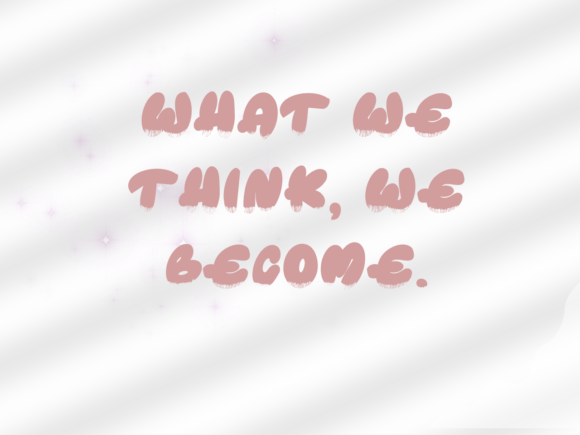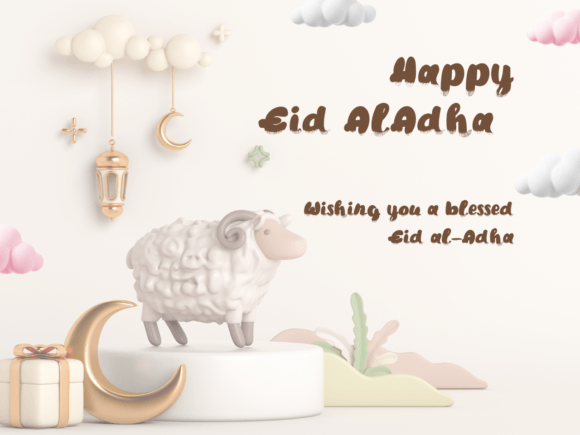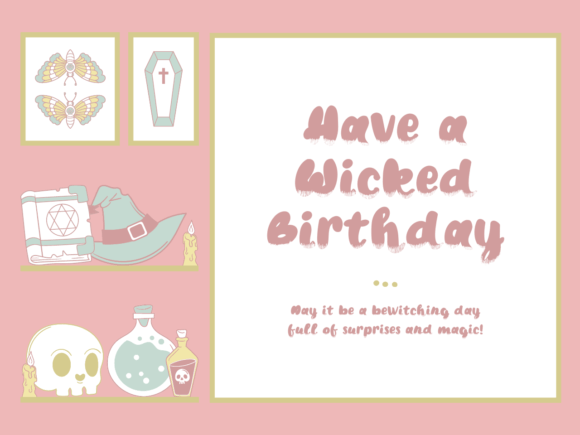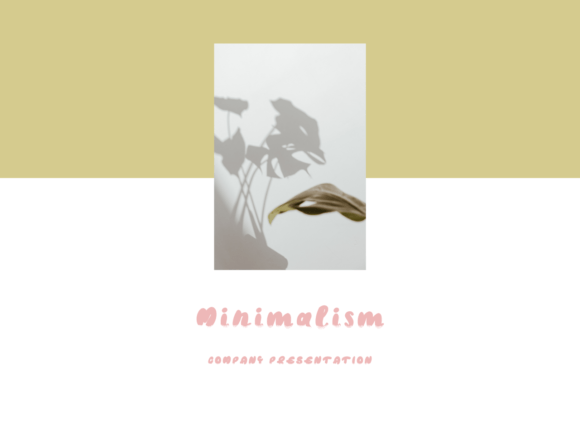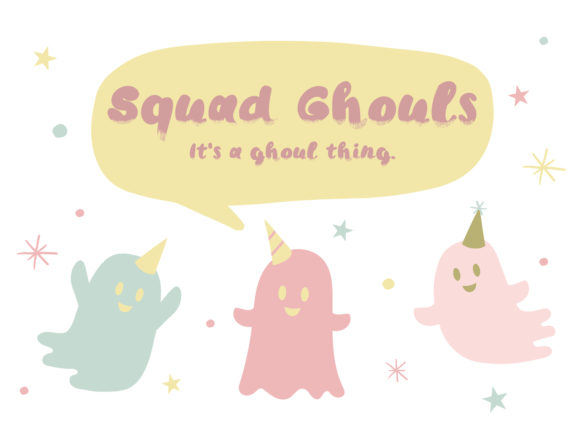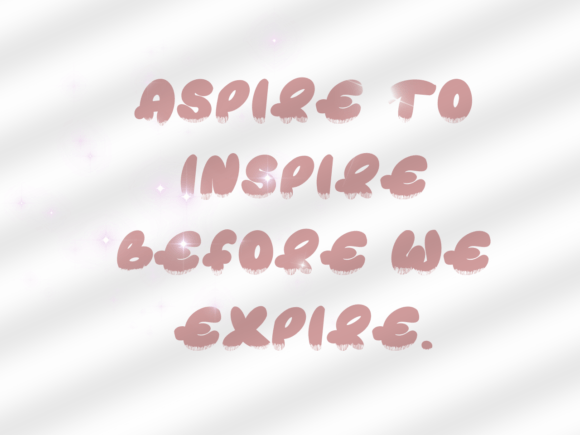
Introducing Beading Font: The Sweet and Friendly Handwritten Font for Creative Projects
Are you a designer, crafter, or DIY enthusiast looking for a font that can add a touch of warmth and personality to your projects? Look no further than Beading Font, a sweet and friendly handwritten font that’s perfect for a wide range of creative applications. In this article, we’ll take a closer look at Beading Font, its features, and how you can use it to elevate your designs.
What is Beading Font?
Beading Font is a beautiful, handwritten font that’s designed to bring a sense of joy and playfulness to your projects. With its rounded letters and gentle curves, this font is perfect for creating invitations, cards, posters, social media graphics, and other materials that require a personal touch. Whether you’re working on a kid-related project or simply want to add some whimsy to your design, Beading Font is an excellent choice.
Key Features of Beading Font
So, what makes Beading Font so special? Here are some of its key features:
- Sweet and friendly design: Beading Font has a warm and approachable design that’s perfect for creating materials that require a personal touch.
- Handwritten style: This font has a beautiful, handwritten style that’s perfect for adding a touch of personality to your projects.
- Versatile: Beading Font can be used for a wide range of projects, from invitations and cards to posters and social media graphics.
- Kid-friendly: The playful design of Beading Font makes it perfect for kid-related projects, such as children’s party invitations, educational materials, and more.
How to Use Beading Font in Your Projects
Beading Font is incredibly easy to use and can be incorporated into a wide range of projects. Here are some ideas to get you started:
- Invitations: Use Beading Font to create beautiful, personalized invitations for parties, weddings, and other special events.
- Cards: Add a touch of personality to your greeting cards, thank-you cards, and other correspondence with Beading Font.
- Posters: Create eye-catching posters for events, promotions, or educational purposes using Beading Font.
- Social media graphics: Use Beading Font to create engaging social media graphics, such as Facebook posts, Instagram captions, and more.
- Kid-related projects: Beading Font is perfect for kid-related projects, such as children’s party invitations, educational materials, and activity sheets.
Tips for Getting the Most Out of Beading Font
Here are some tips for getting the most out of Beading Font:
- Experiment with colors: Beading Font looks great in a variety of colors, so don’t be afraid to experiment and find the perfect hue for your project.
- Pair with other fonts: Beading Font can be paired with other fonts to create a unique and visually appealing design.
- Use it for headings and titles: Beading Font is perfect for headings and titles, where its playful design can really shine.
In conclusion, Beading Font is a sweet and friendly handwritten font that’s perfect for a wide range of creative projects. With its versatile design, kid-friendly style, and ease of use, Beading Font is an excellent choice for designers, crafters, and DIY enthusiasts. Whether you’re working on invitations, cards, posters, or social media graphics, Beading Font is sure to add a touch of warmth and personality to your designs.